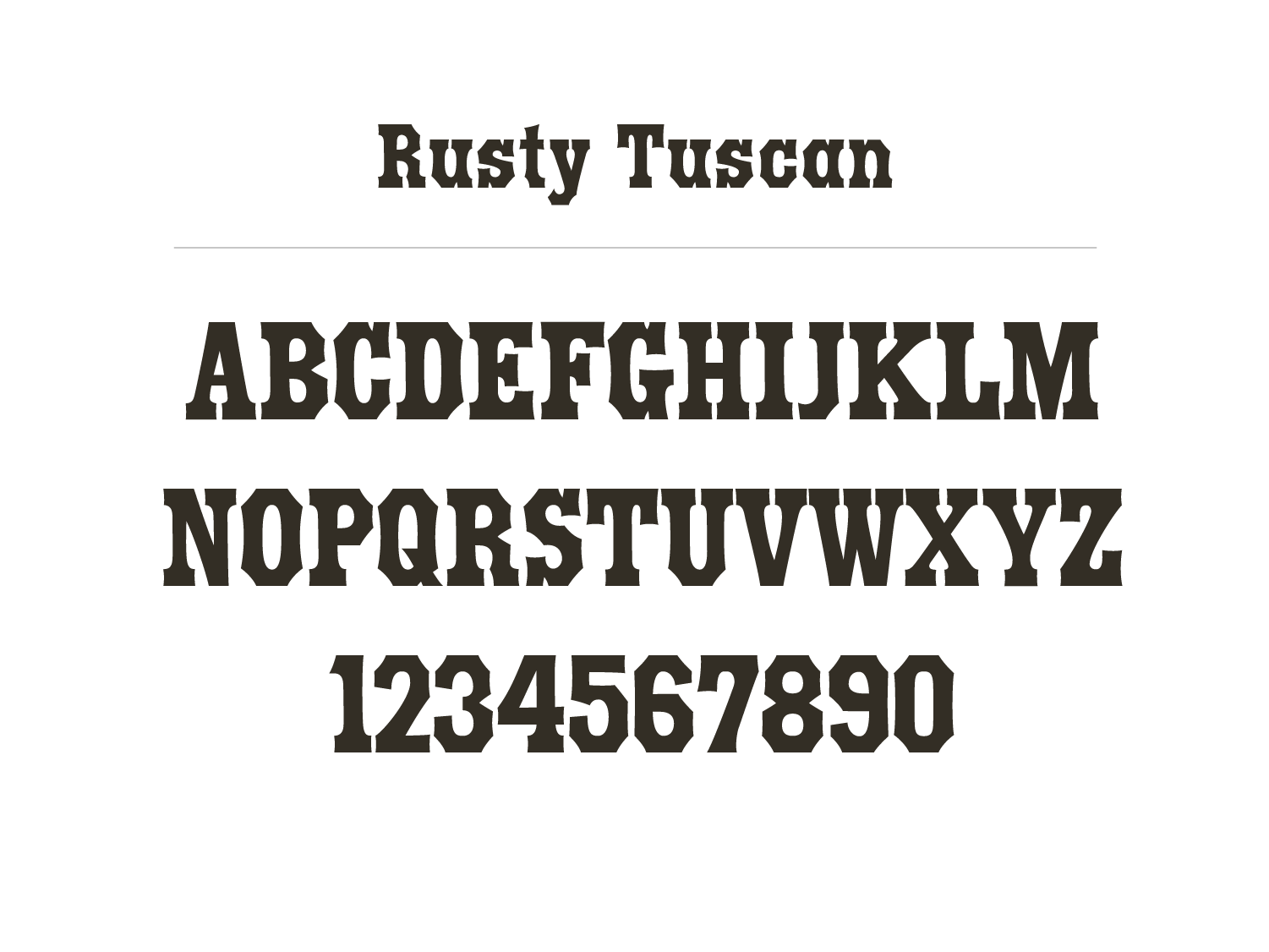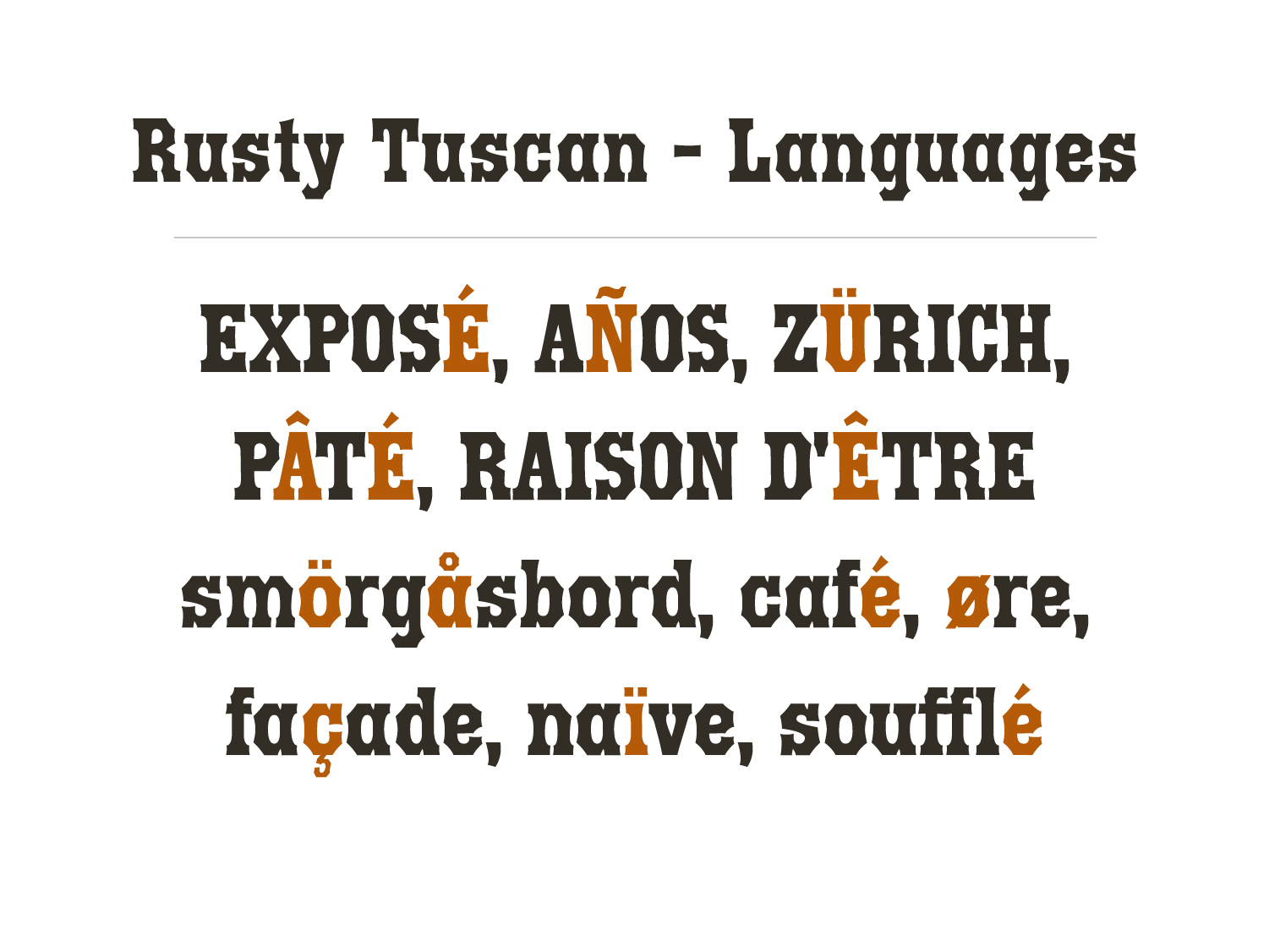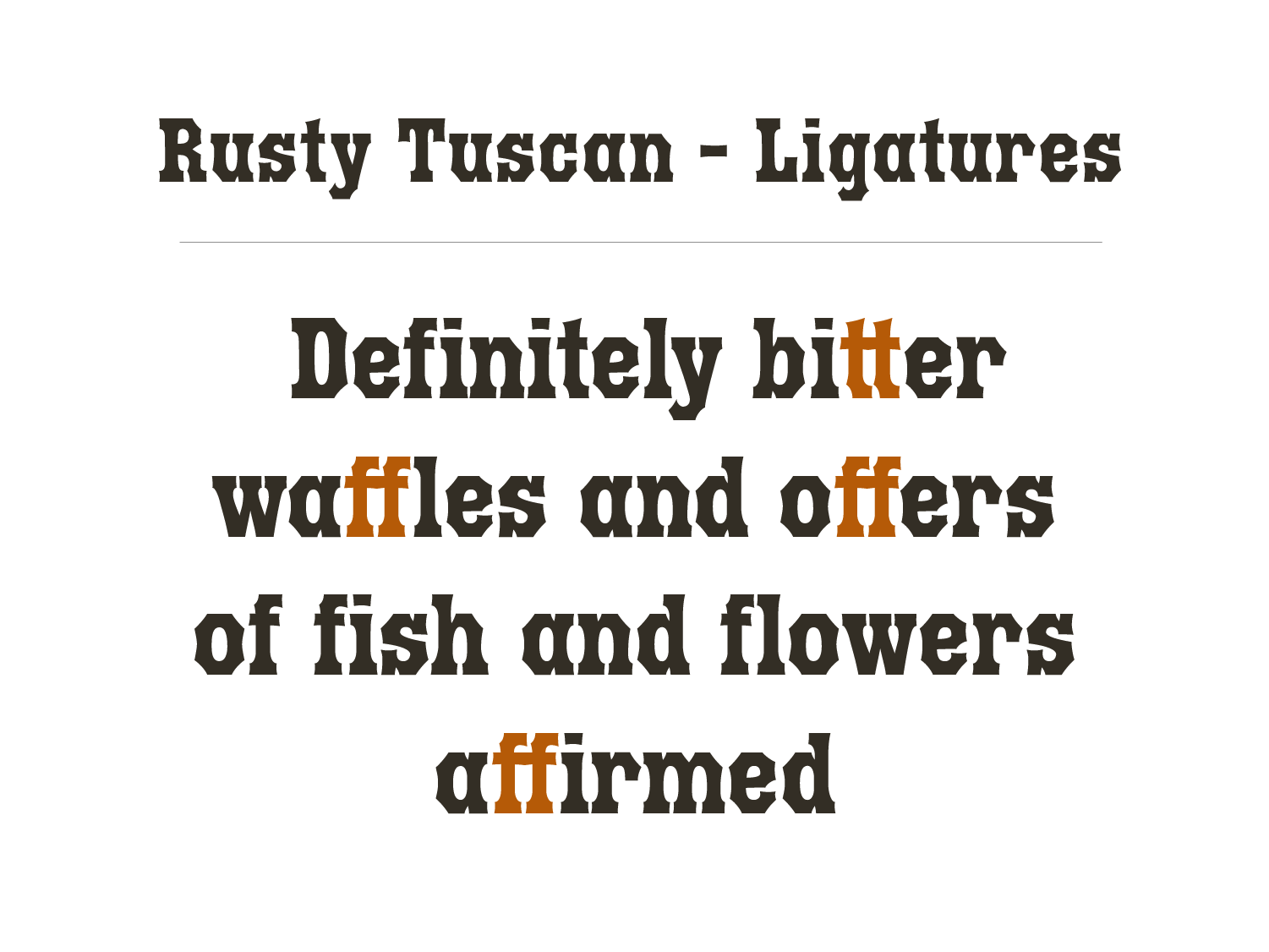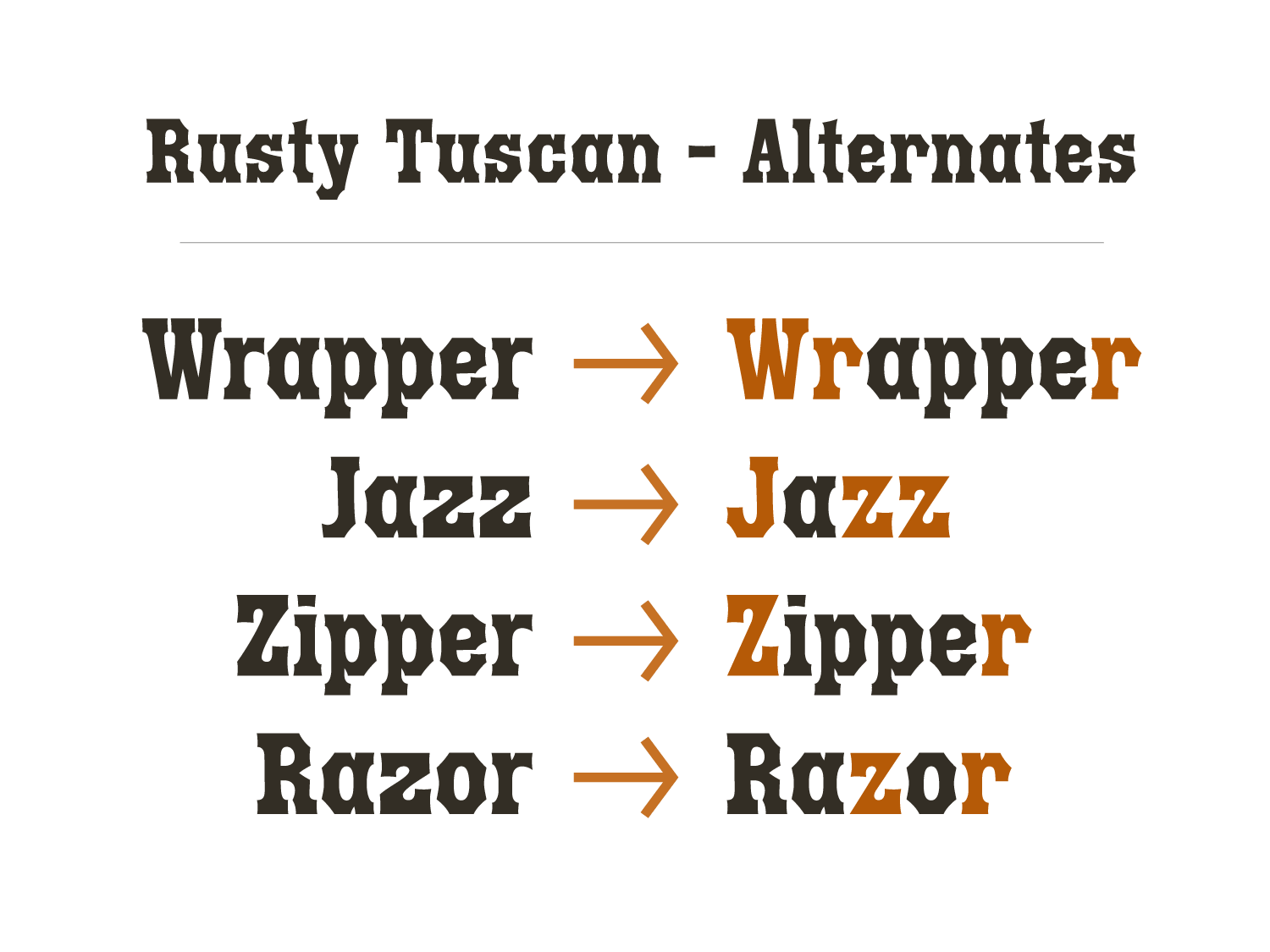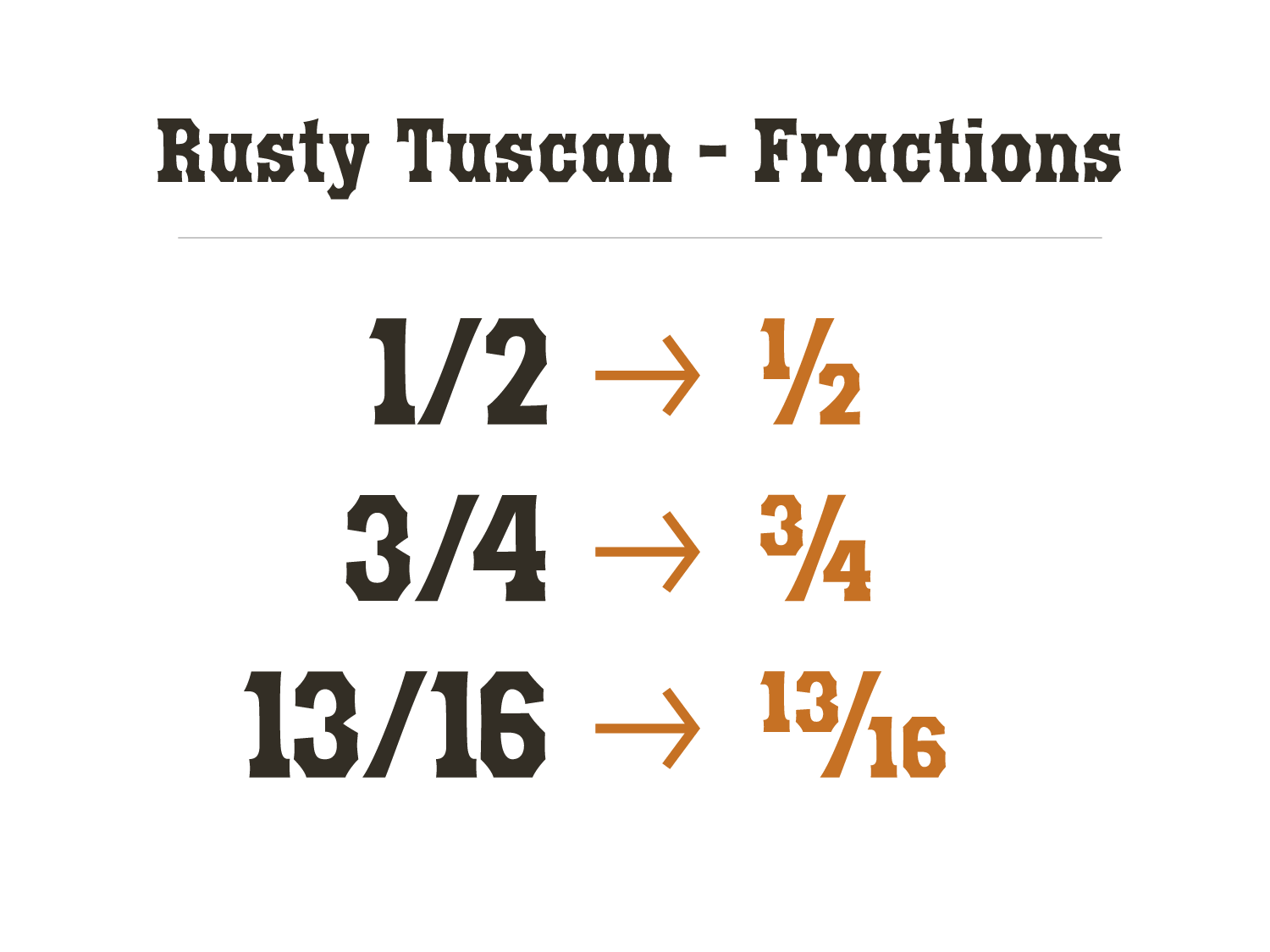
In the 1850s there were clipper ships advertising their services. It seems that most of them were “for San Franscisco”, and there were cards and posters with the names of the ships in a bold, Tuscan-style type. I took my inspiration from several posters to make this font.